1. Felicity Handwritten Free Font
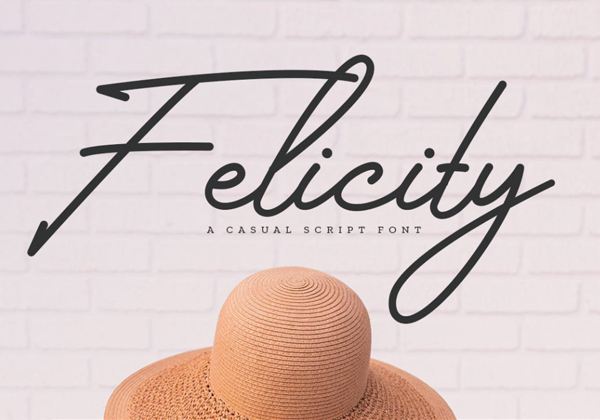
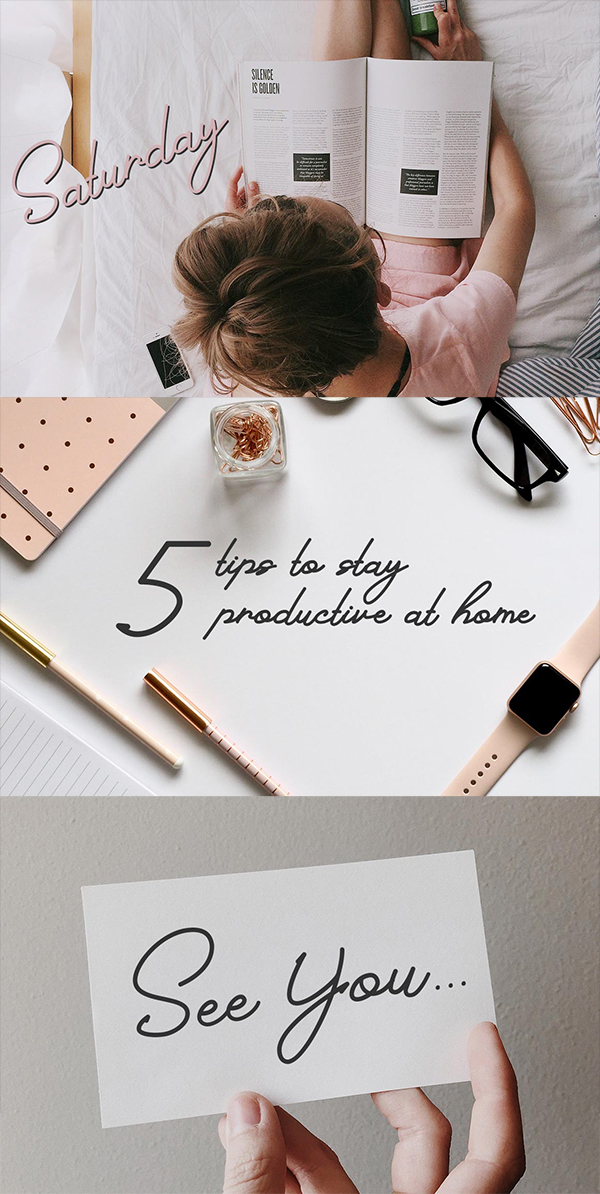
2. Kallem Script Free Font
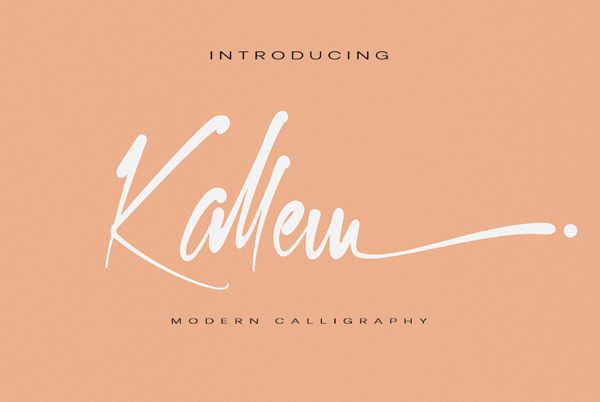
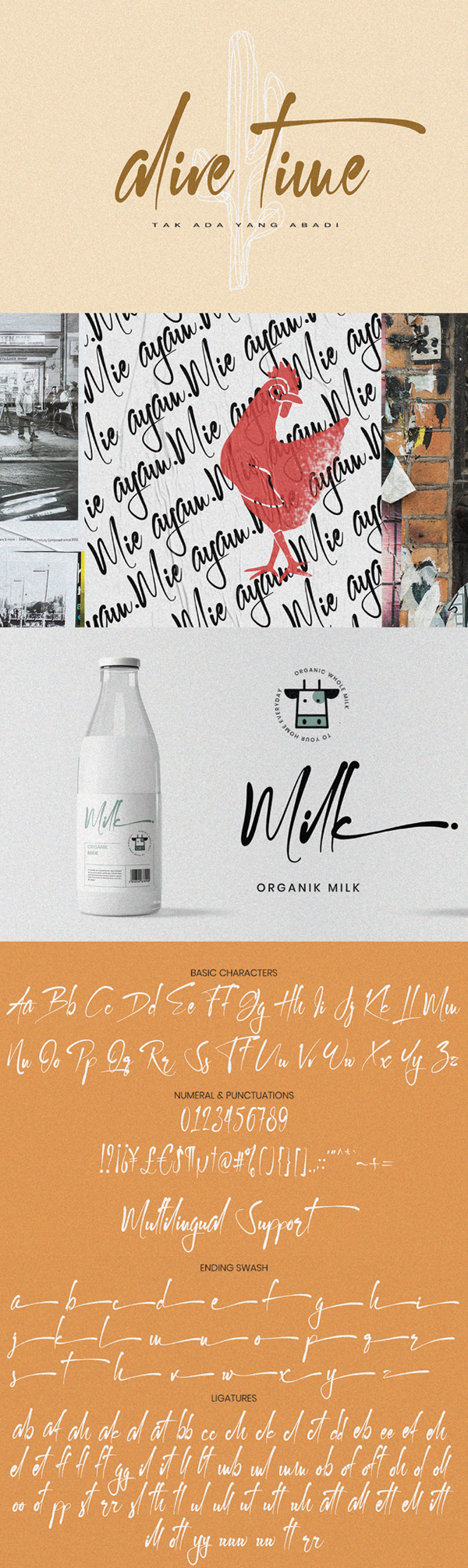
3. Cyrene Free Font
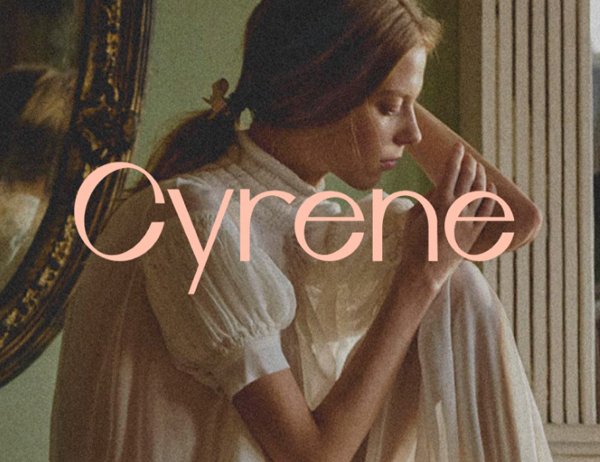
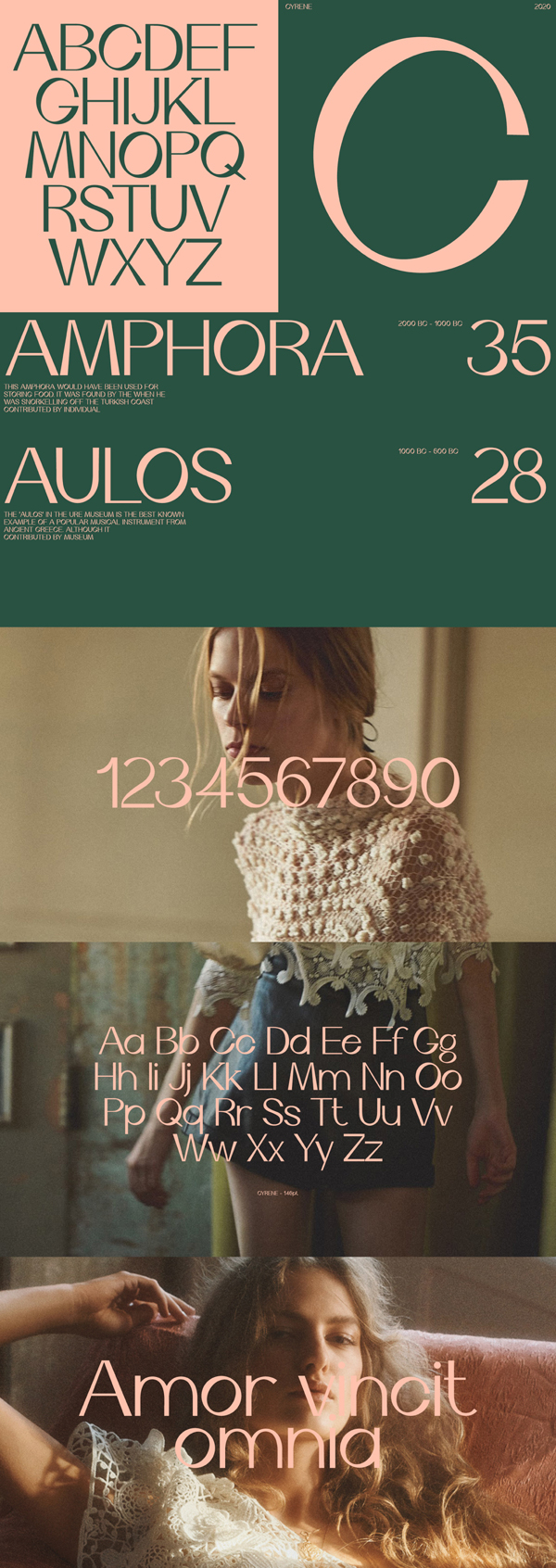
4. Quakep Free Font
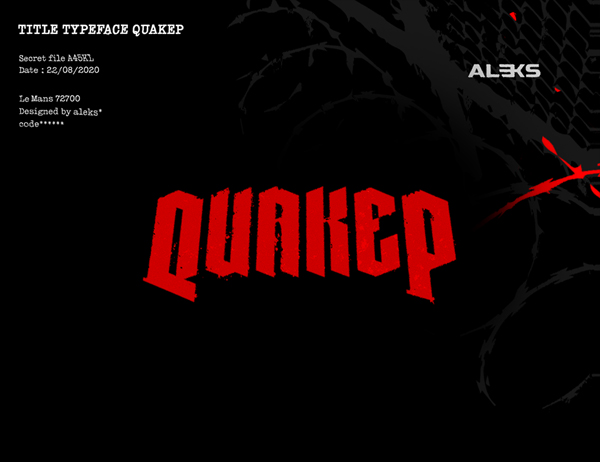
5. Cactron Free Font
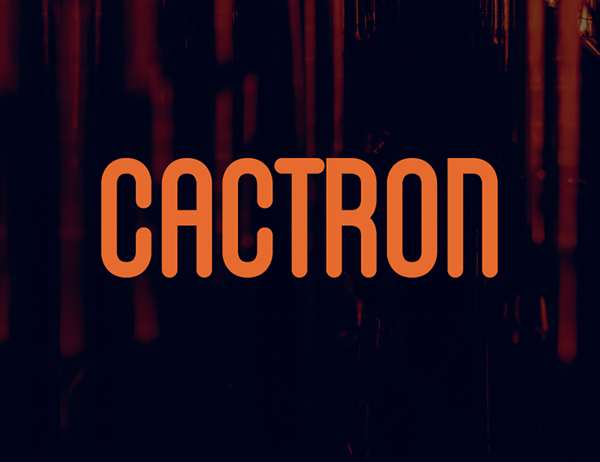
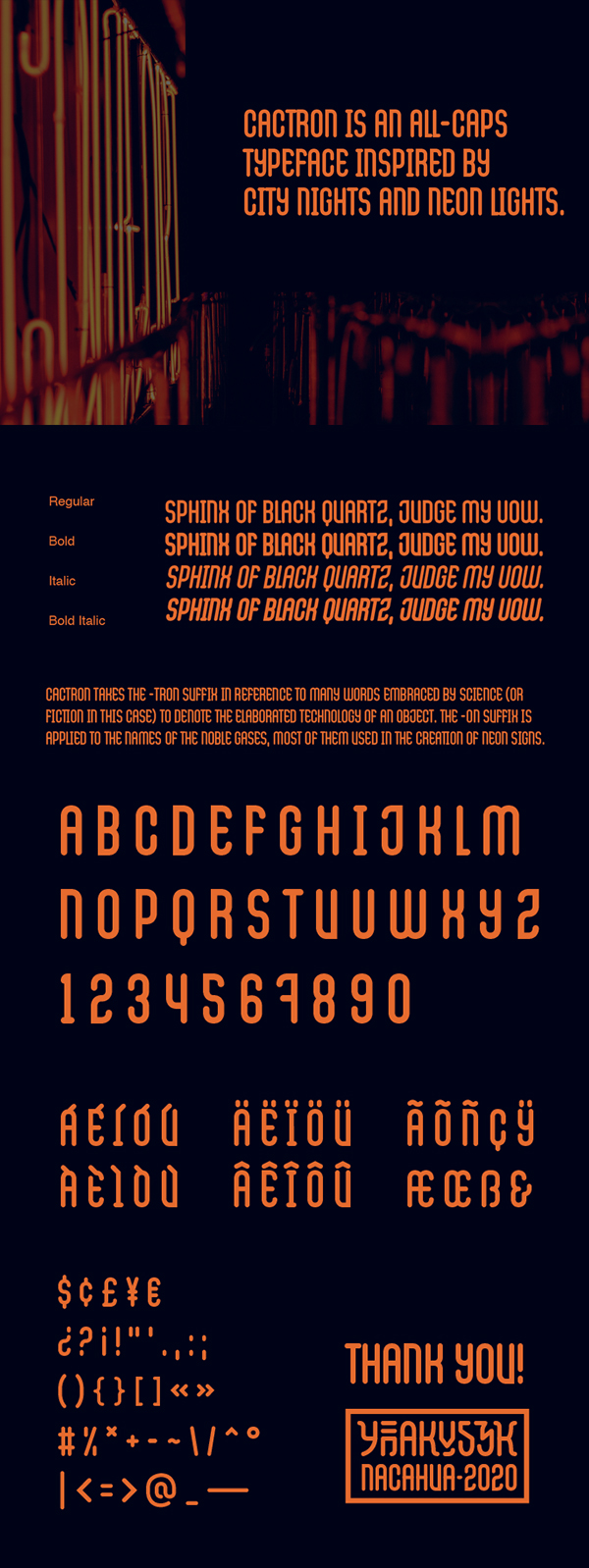
6. Arimo Regular Free Font
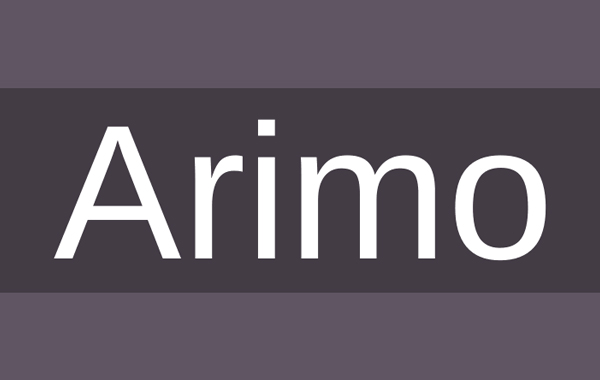
7. The Sherloks Free Font
8. Castillo Free Font
9. Enguarda Free Font
10. Dredd Free Font
11. Reflee Free Font
12. Throw-Up Free Font
13. Sqarz Free Font
14. Victoire Free Font
15. Gontserrat Free Font
16. Formula Free Font
17. Dirga Bold Free Font
18. Bambi Handwritten Free Font
19. Frederick Sans Free Font
20. Calderock Vintage Free Font
21. Margaret Serif Free Font
22. Cykor Display Free Font